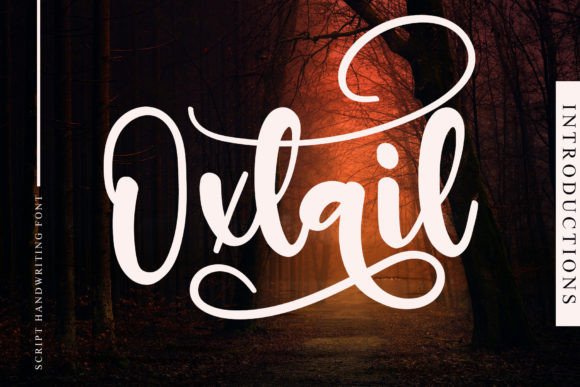
Journey into the world of Oxtail, a script font masterpiece crafted by YanStudio, and let your creativity soar. This enchanting font family, meticulously designed for jewelry businesses, invites you to elevate your branding with its delicate strokes and impeccable style.
Oxtail's elegant curves and playful swashes bring a touch of sophistication and whimsy to your designs. It's the perfect choice for logos, branding, labels, photography watermarks, special events, and any project that demands a beautiful script aesthetic.
With Oxtail, you'll capture the attention of your audience and leave a lasting impression. Its versatility extends to a wide range of applications, including web design, social media graphics, invitations, and product packaging. Unleash your imagination and let Oxtail transform your designs into works of art.
Oxtail is more than just a font; it's a gateway to a world of creativity and expression. Its PUA encoding grants you effortless access to all the glyphs and swashes, empowering you to add intricate details and flourishes to your designs with ease.
Don't settle for ordinary when you can embrace the extraordinary. Choose Oxtail and embark on a creative journey that will redefine your branding and leave your customers captivated.